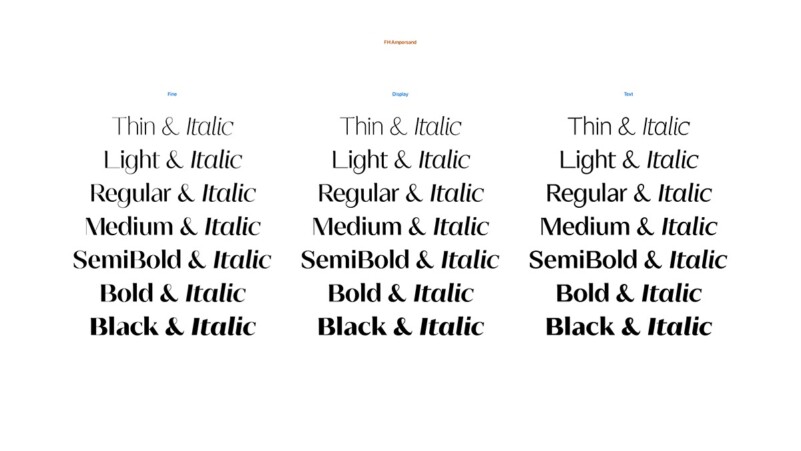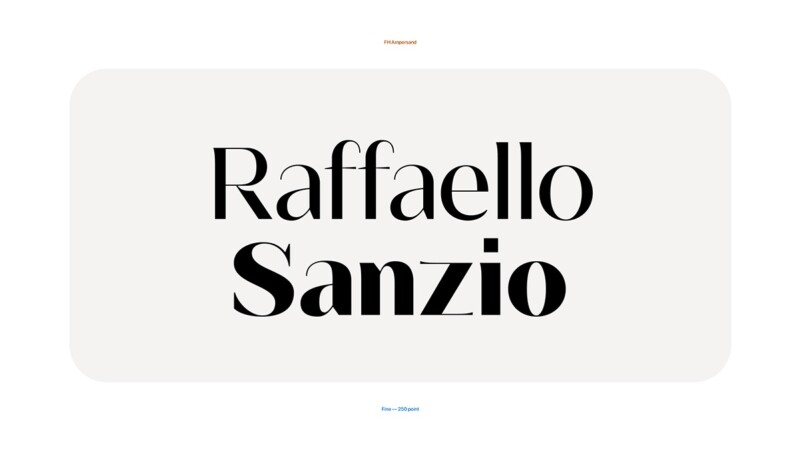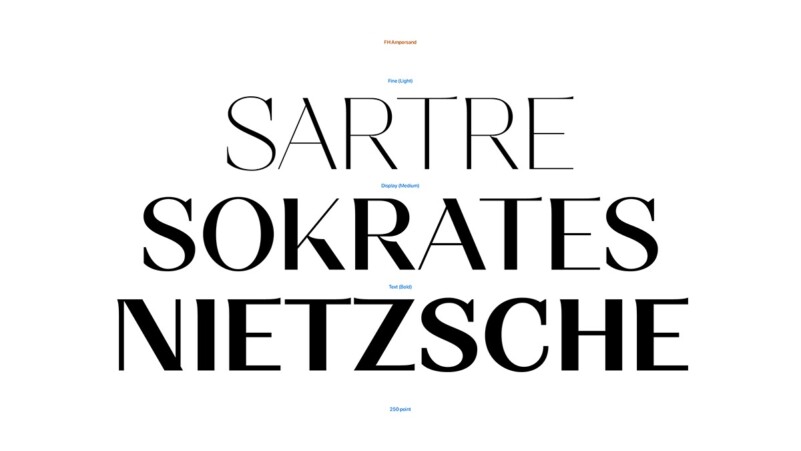
FH Ampersand Font is an elegant and simple sans serif with minimalist look that will make your project more chic and modern! Despite of its contrast structure, it has a semi-serif nature by not having strokes. When it is compared with its previous two versions, we encounter three different styles in the new generation: display, fine and text.